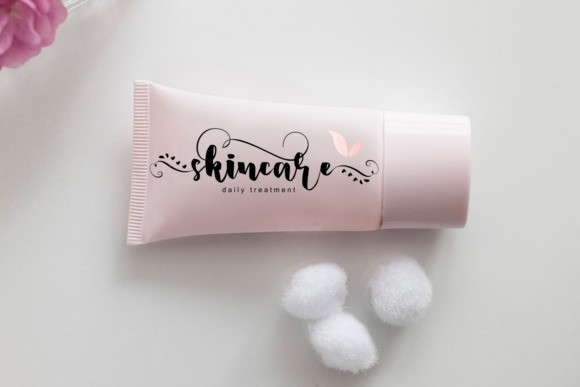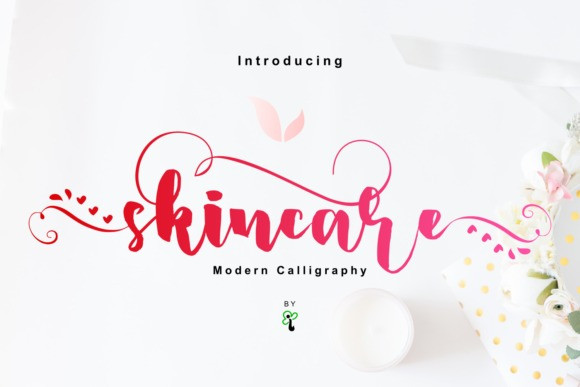
Skincare Font
Skincare Script Font is a chic, refined script font that emanates sophistication and elegance. Its stylish alternates and ligatures make this font the perfect match for any project.